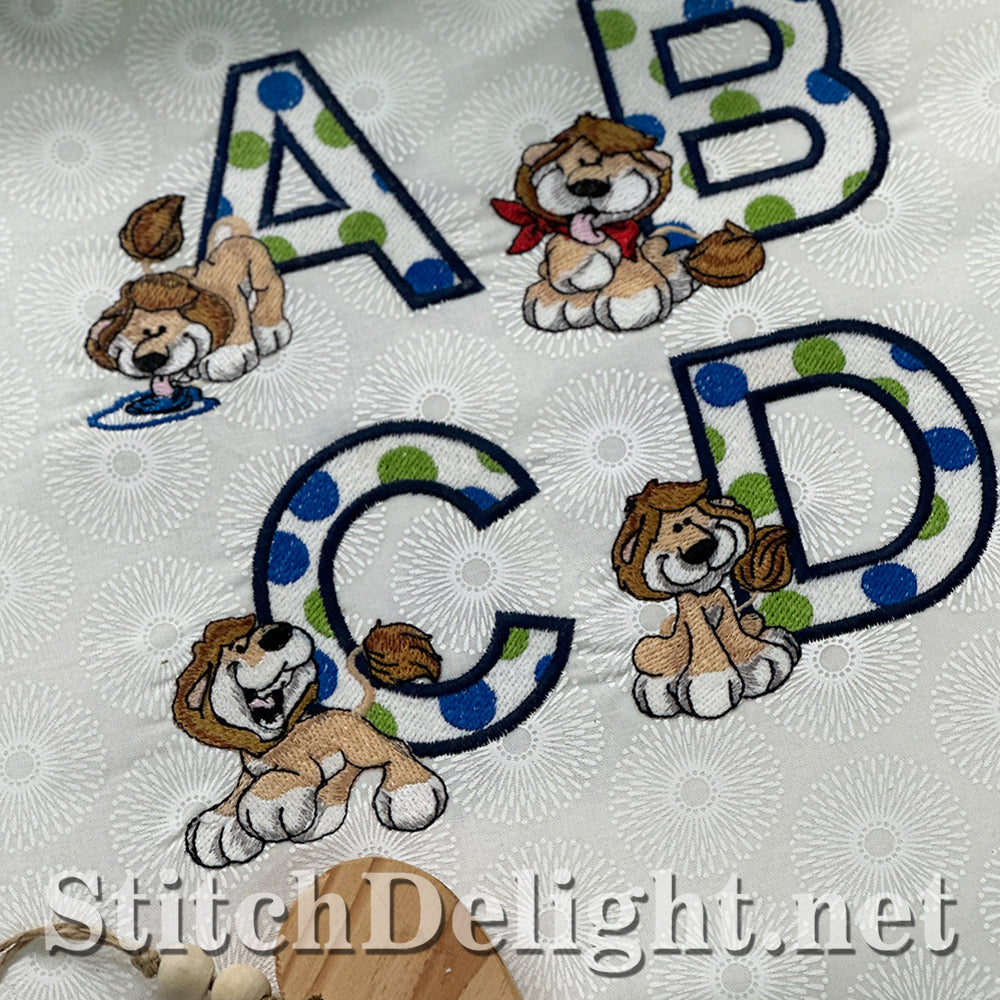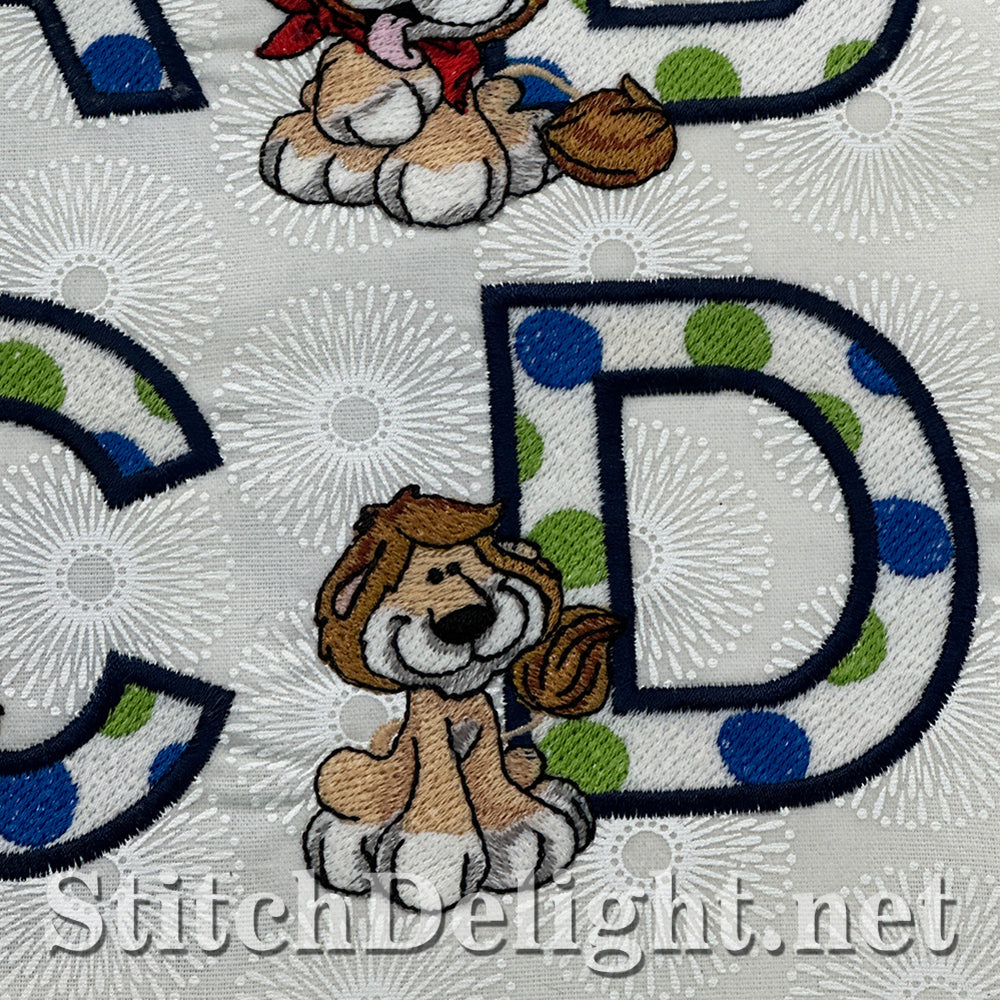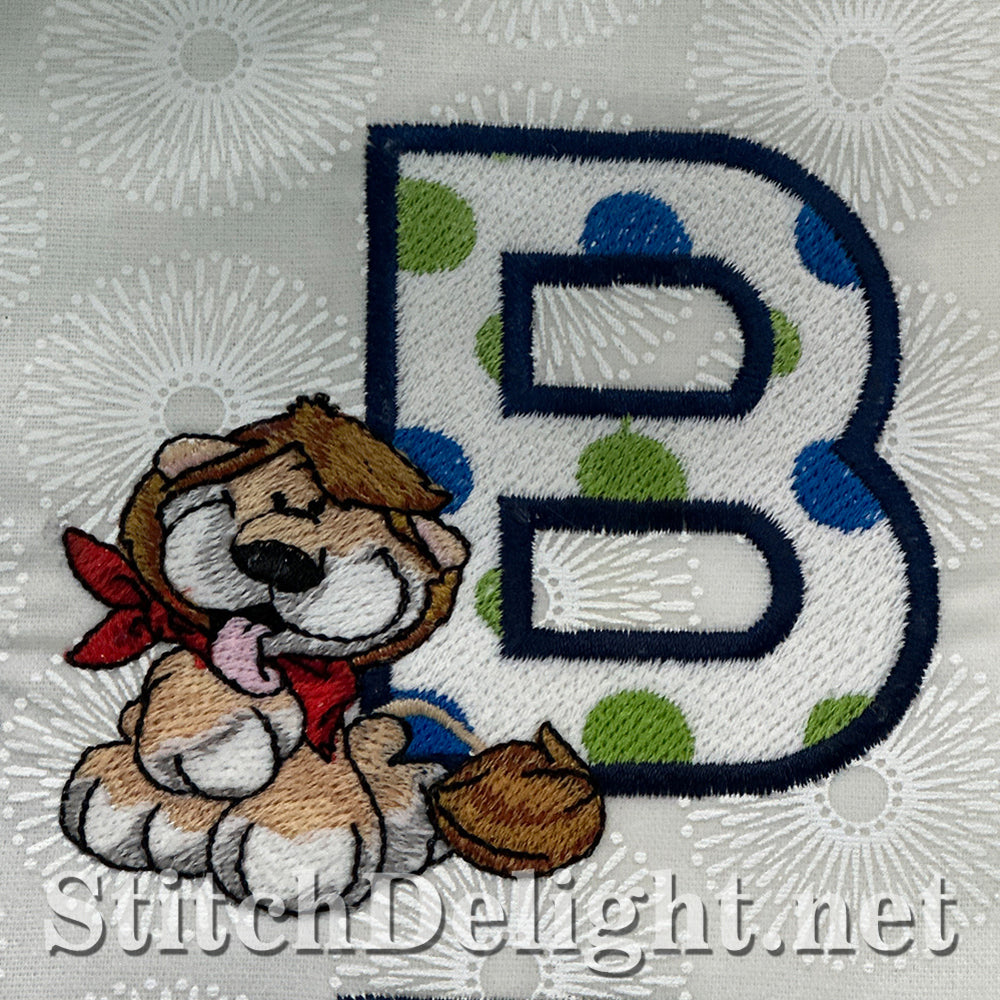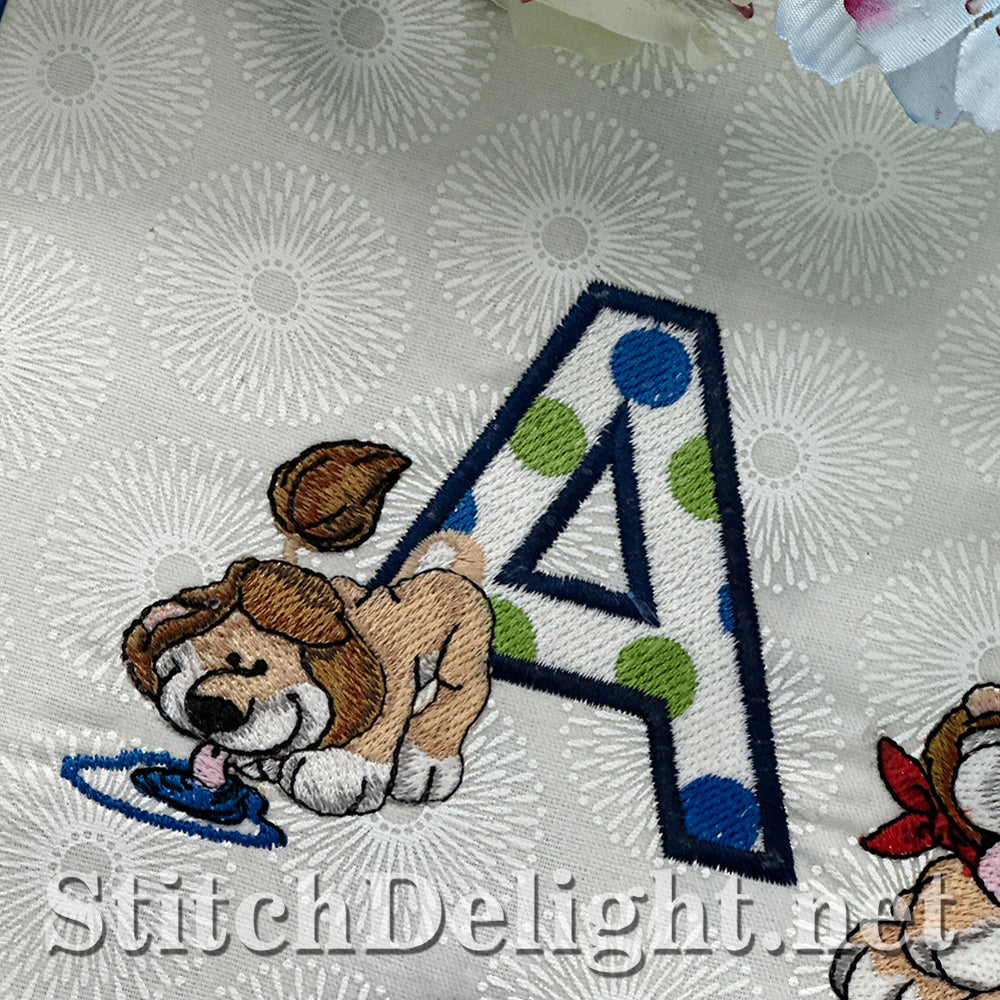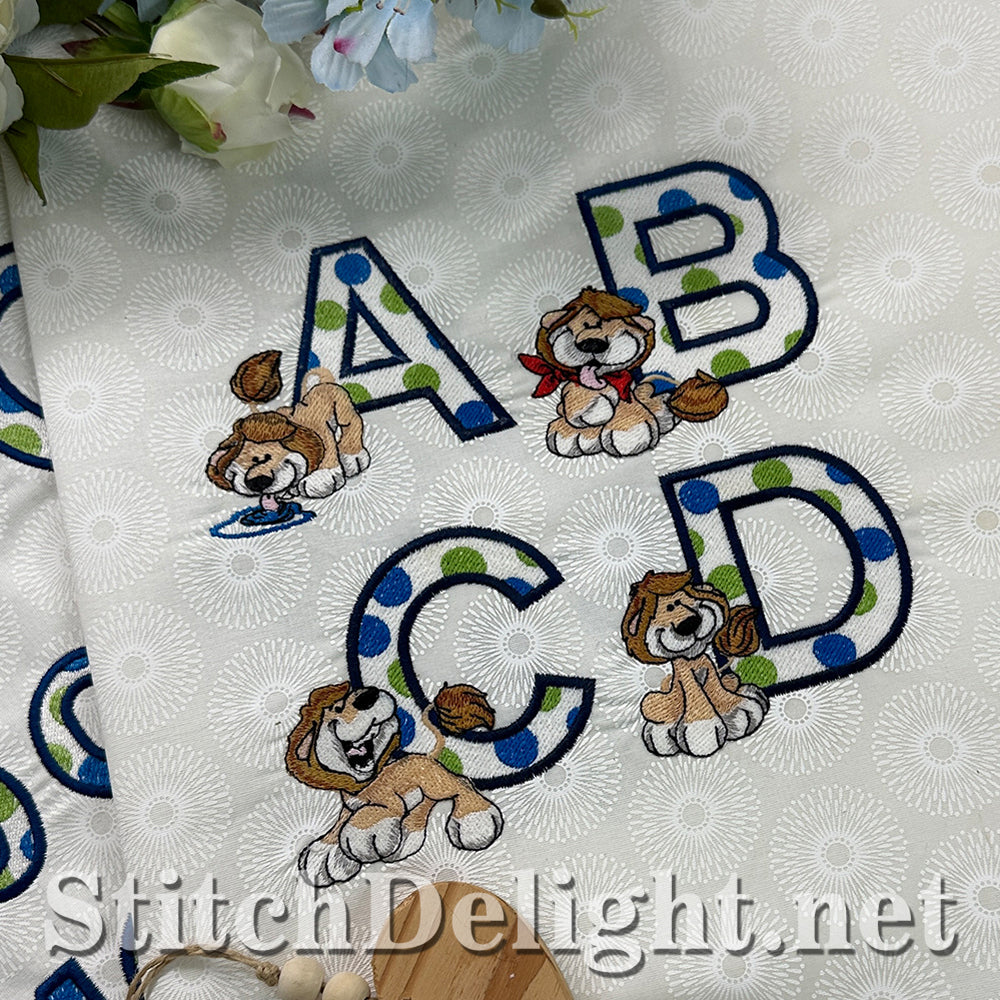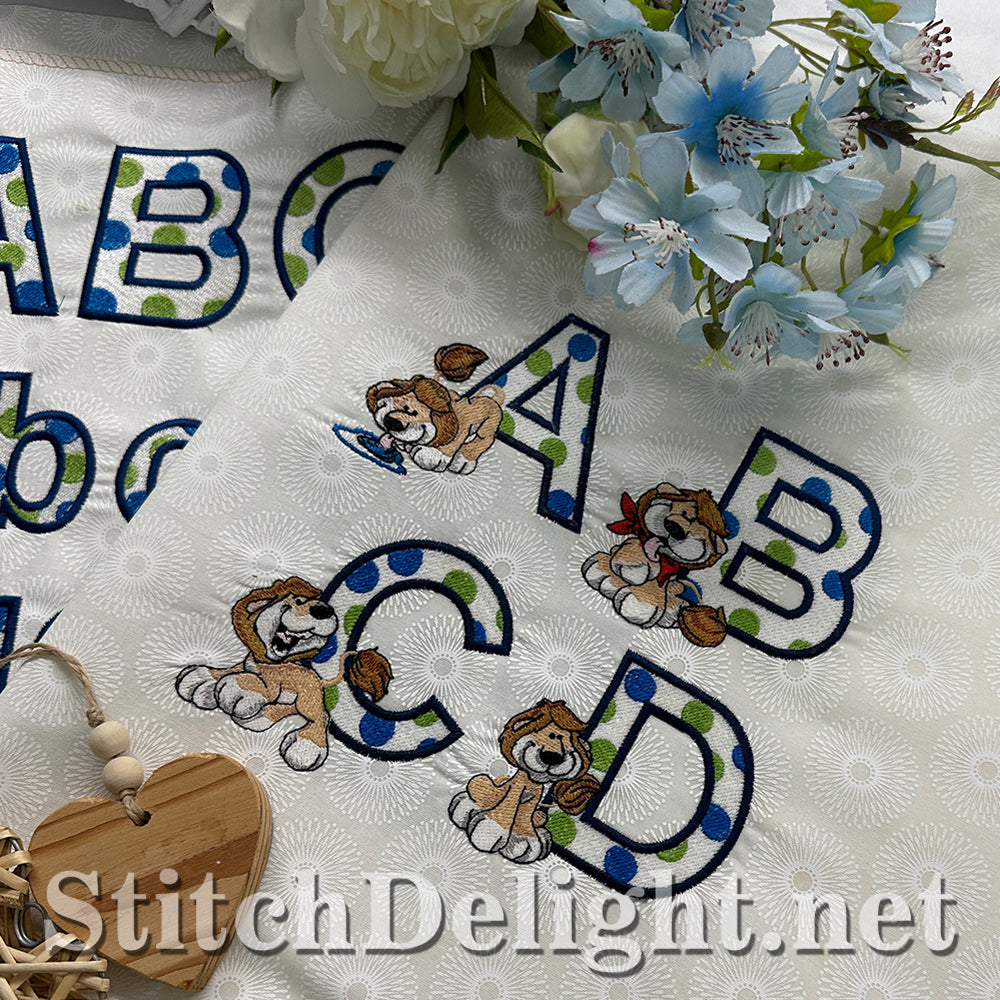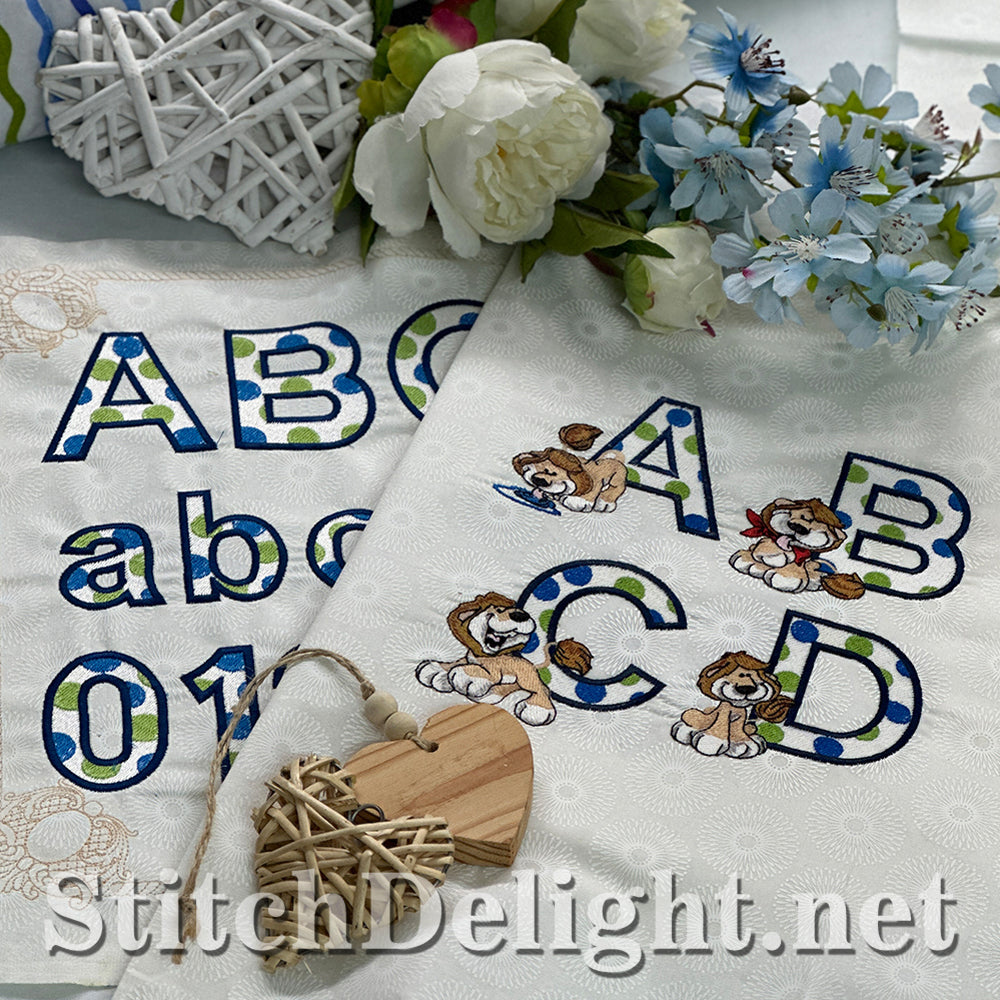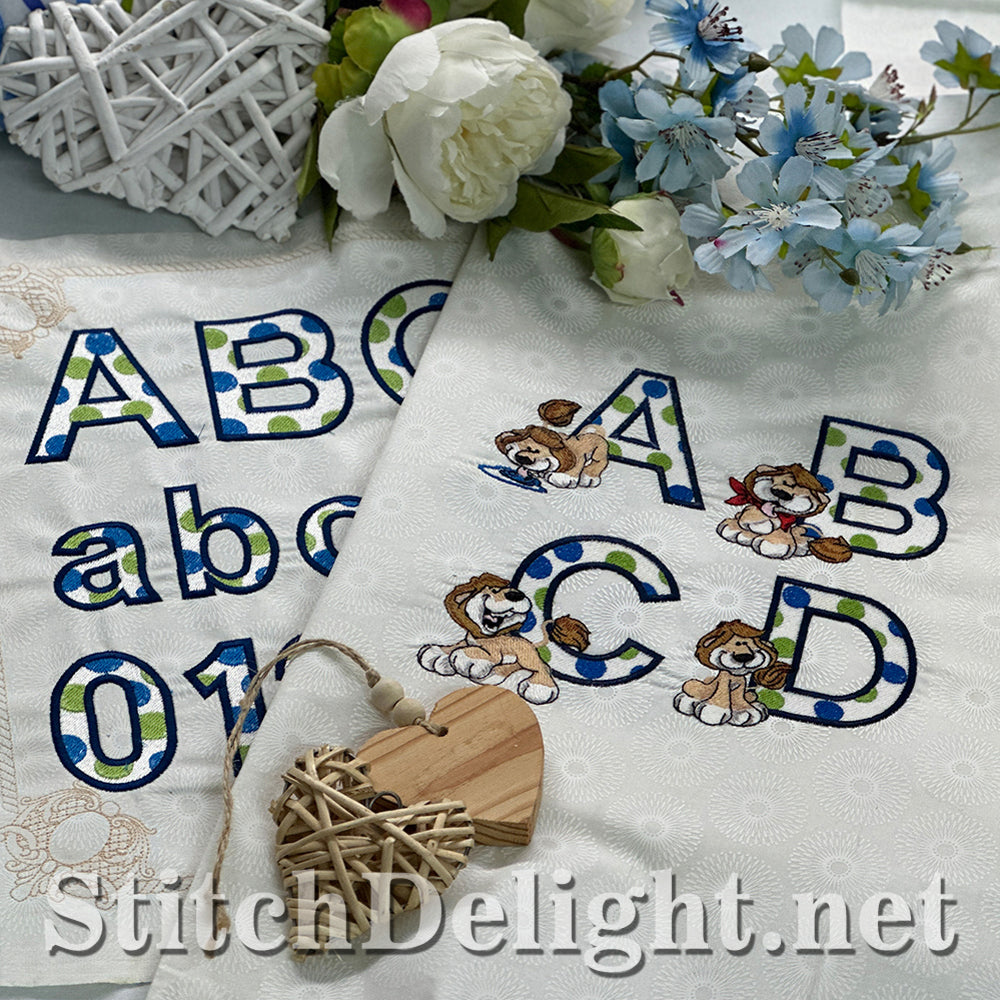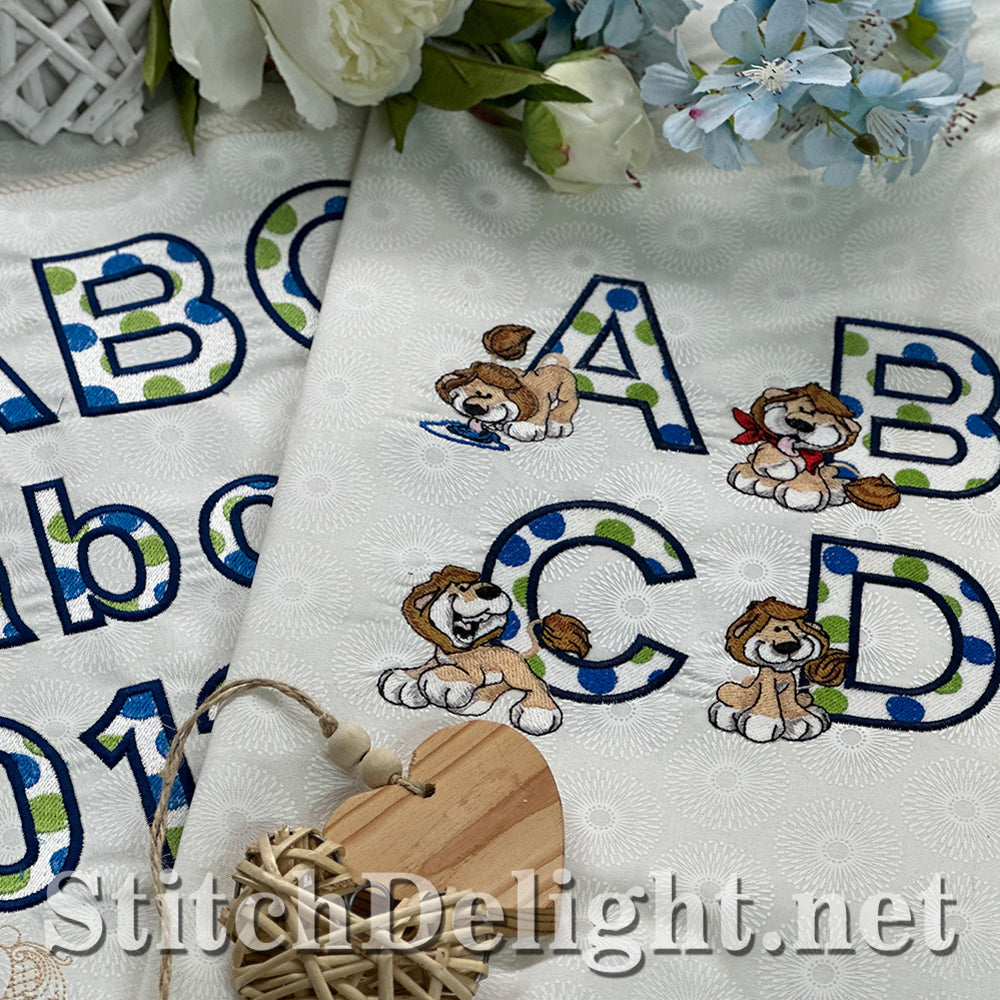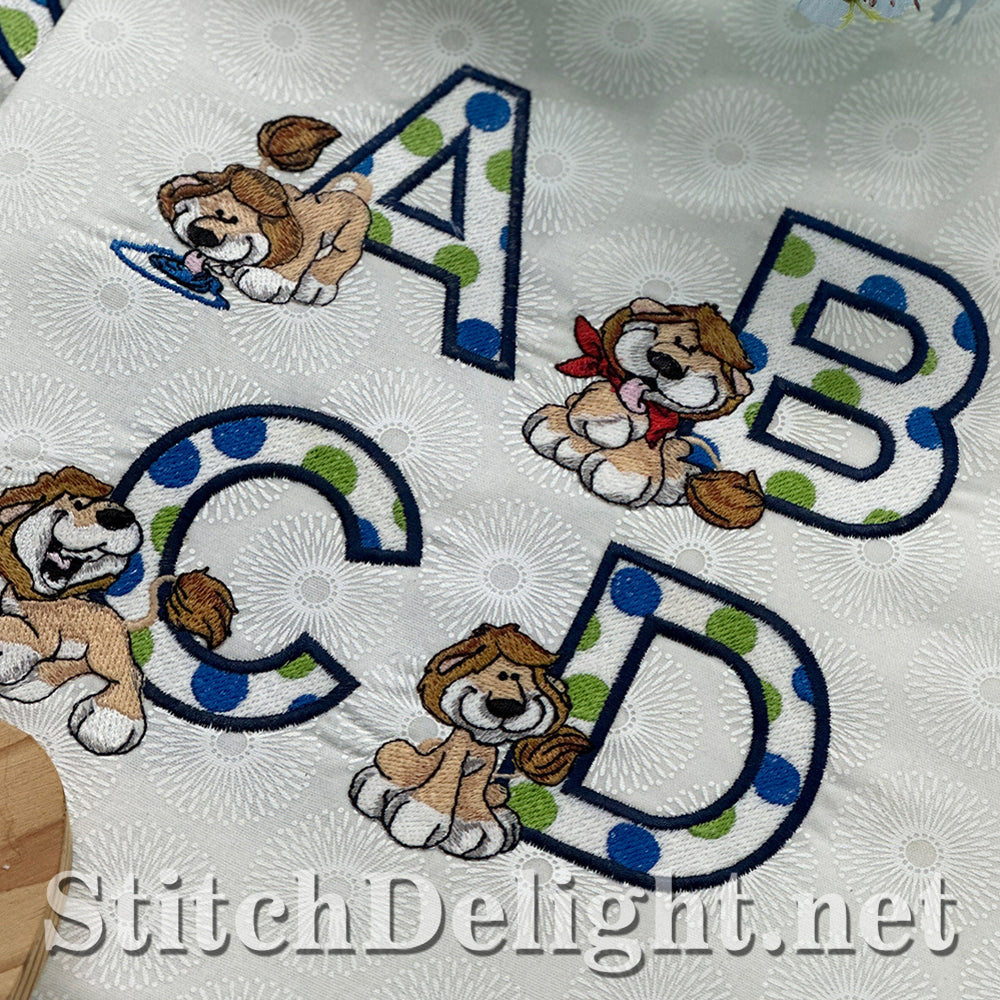
Made to match Mighty Lion Quilting this set features a matching font with the adorable lion, this is our collectors font for April 2024 which means you get to collect it one letter a day for only $2 during this month only. So be sure to pop this one in your cart as you don't want to lose out on this cutie!